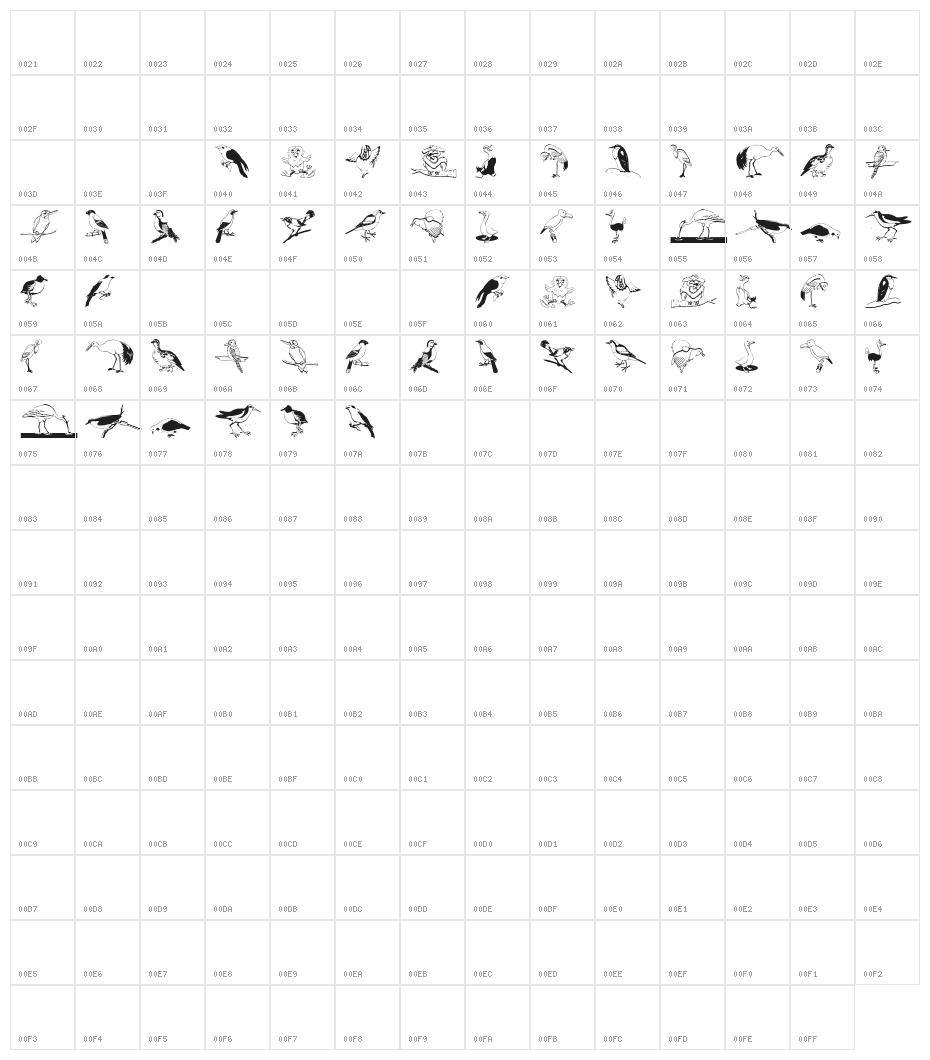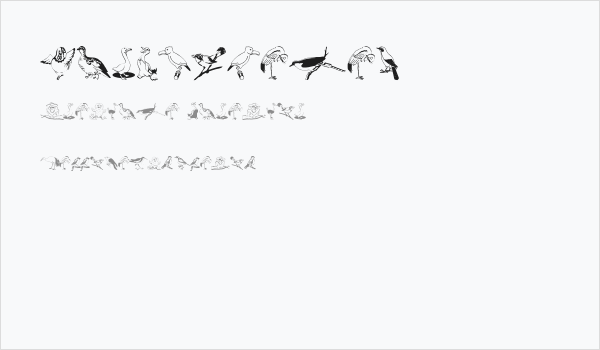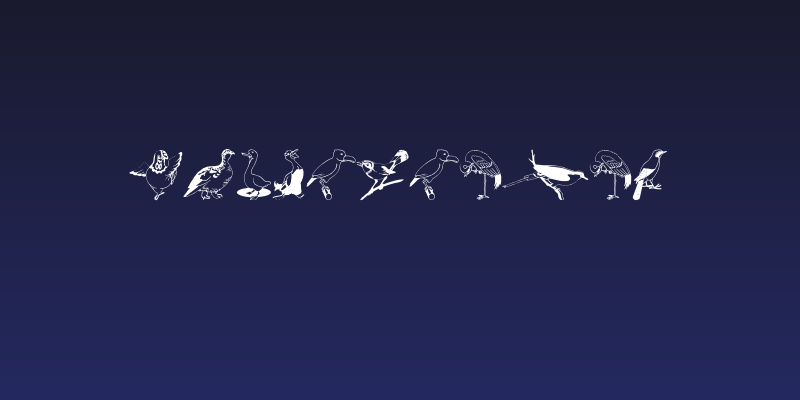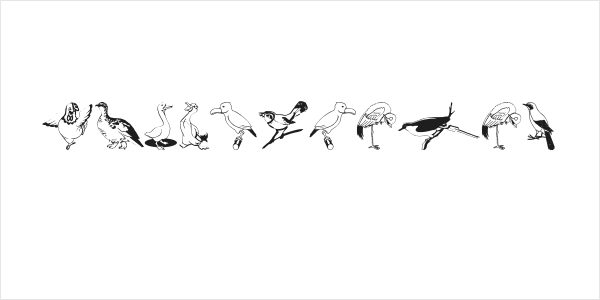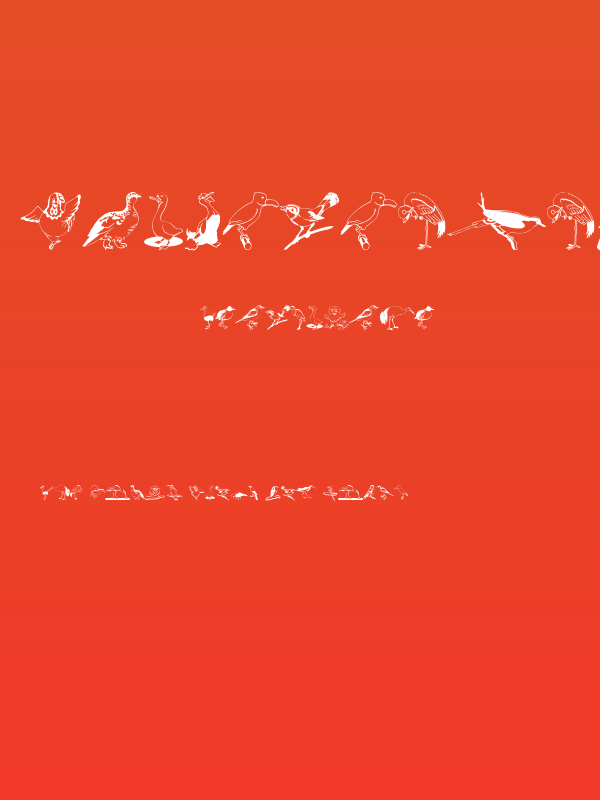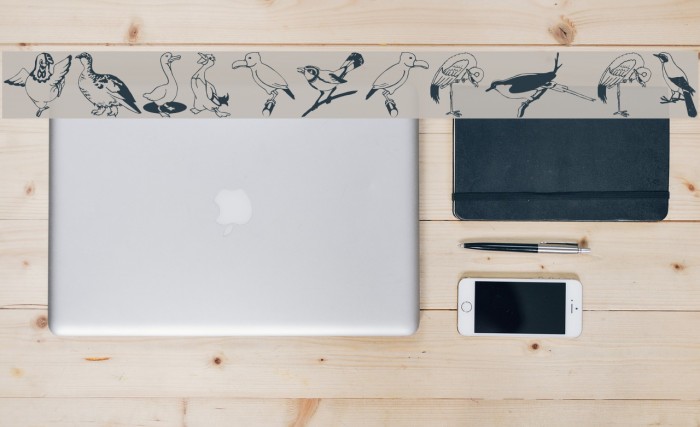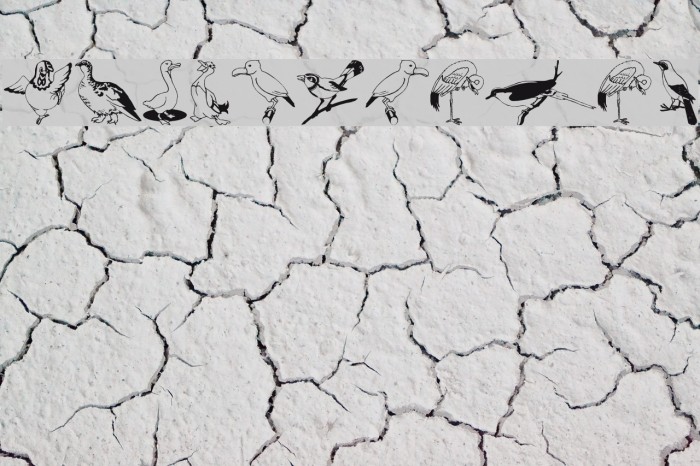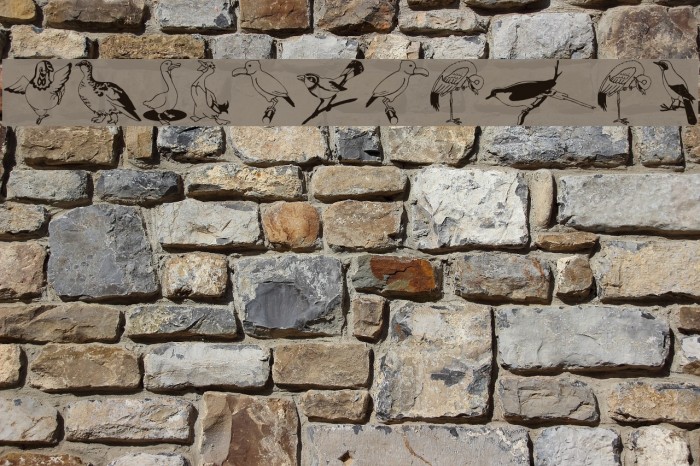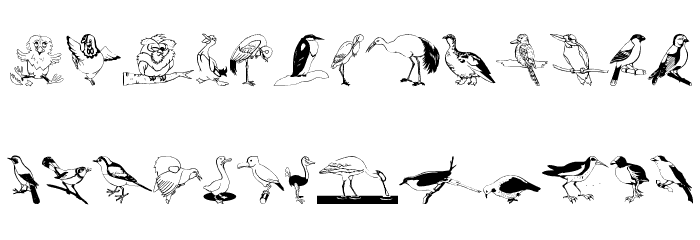
BirdsOSeven Font
BirdsOSeven Description
A decorative font composed entirely of detailed bird illustrations, each character represented by a unique bird drawing in various poses and styles, with a mix of line art and filled shapes.
| Overall Style | Decorative, Playful, Artistic |
| Use Case | Logos, Headlines, Themed graphics, Educational content |
| Proposed Projects | Nature-themed posters, educational materials, children's books, creative invitations, wildlife branding. |